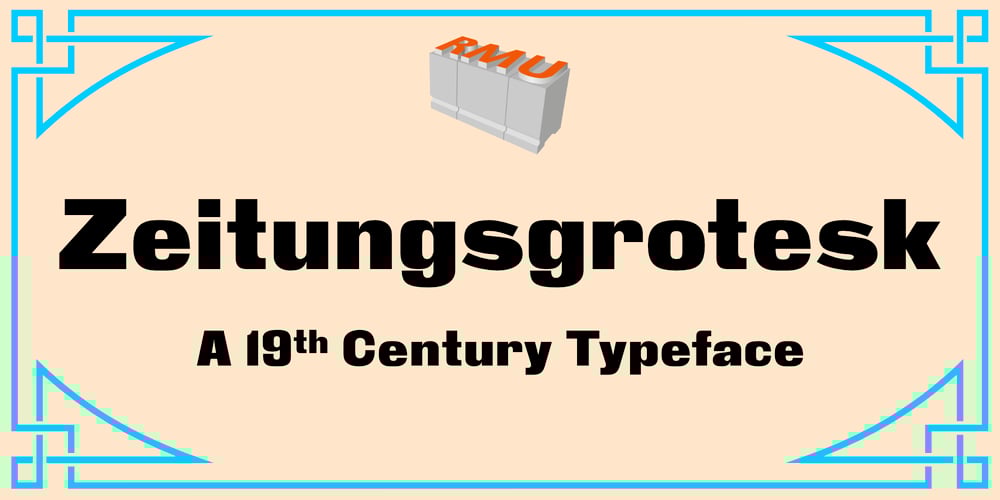
Zeitungsgrotesk Font Family was designed by Ralph M. Unger and published by RMU. Zeitungsgrotesk contains 1 styles and family package options. Zeitungsgrotesk was a widely used headline font in Germany in the 19th century and later on. Now I redraw and redesigned this remarkable font for modern use. This font comes with the old-style numero sign as well as with the discretionary ligatures IJ, ij, degree Celsius, and degree Fahrenheit.